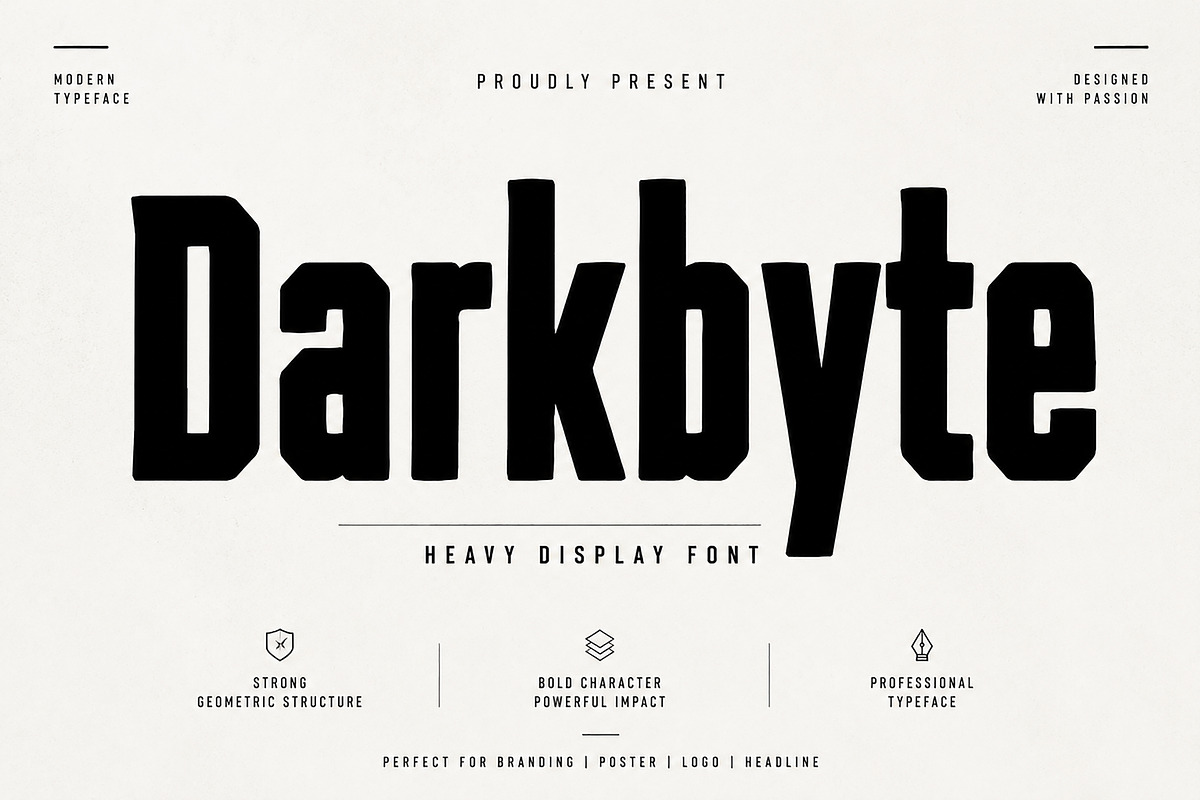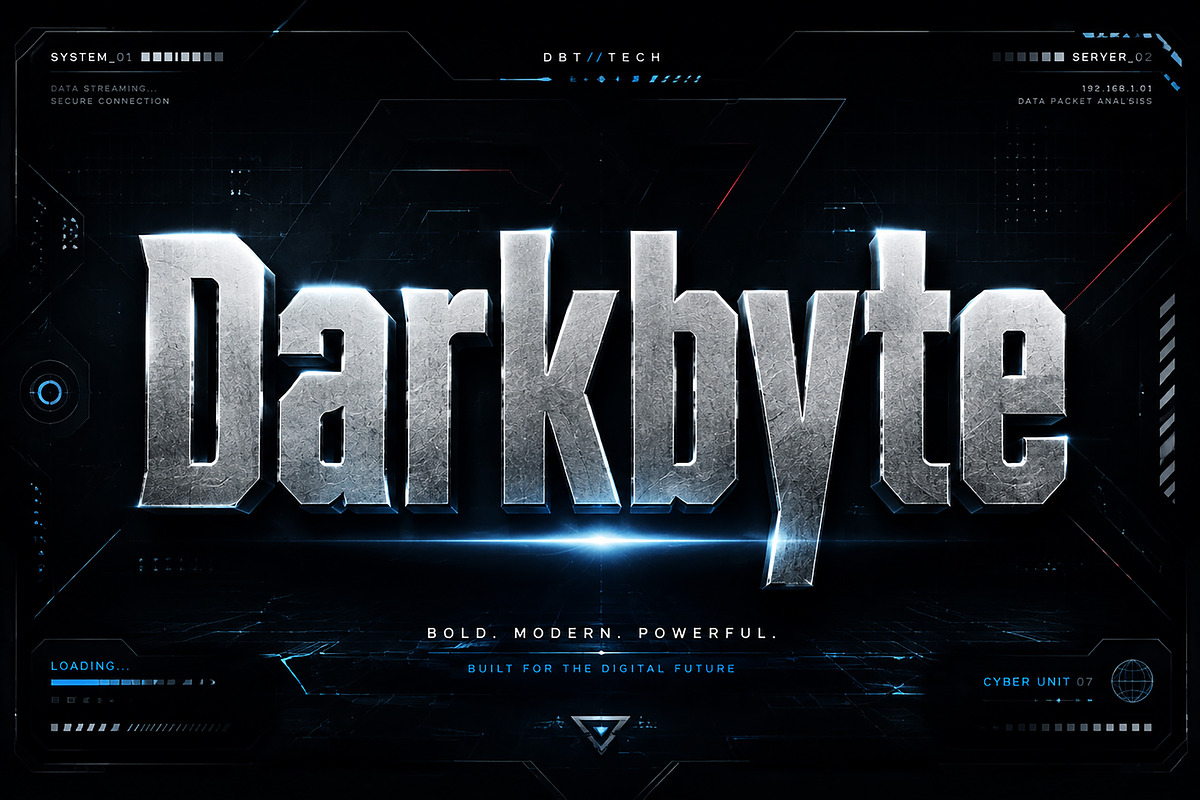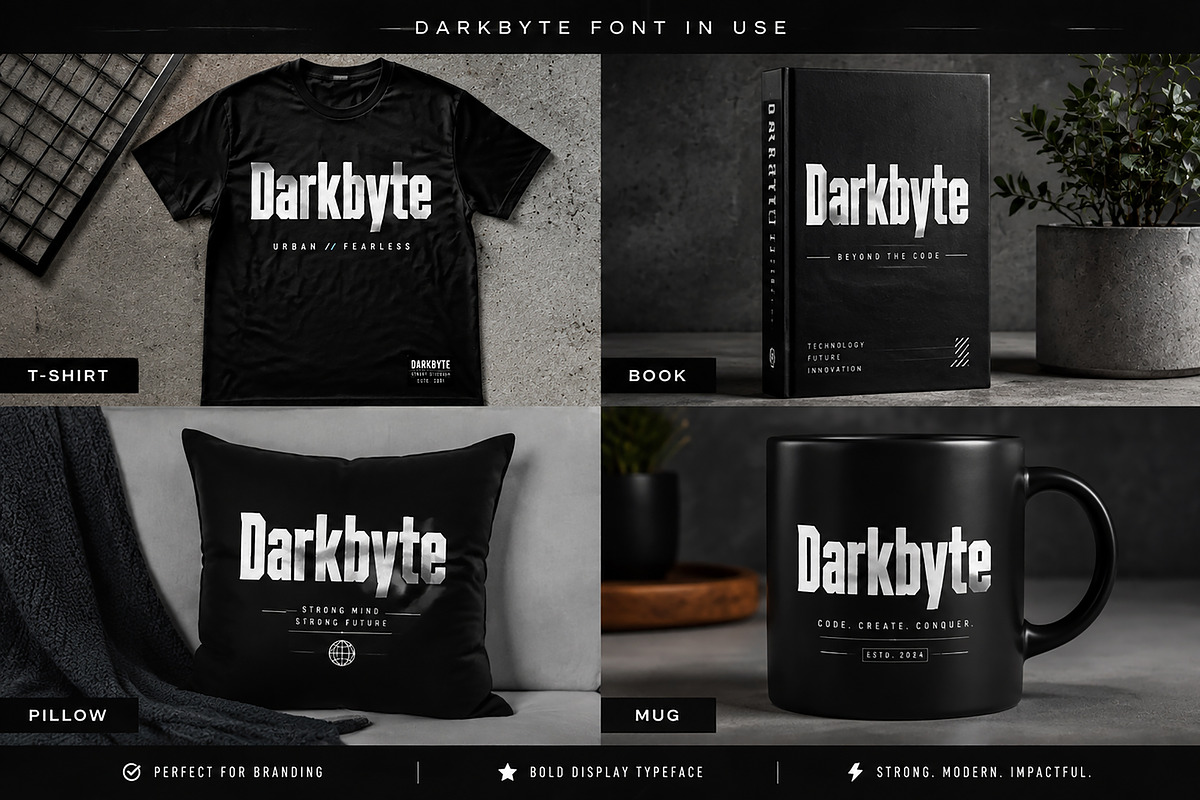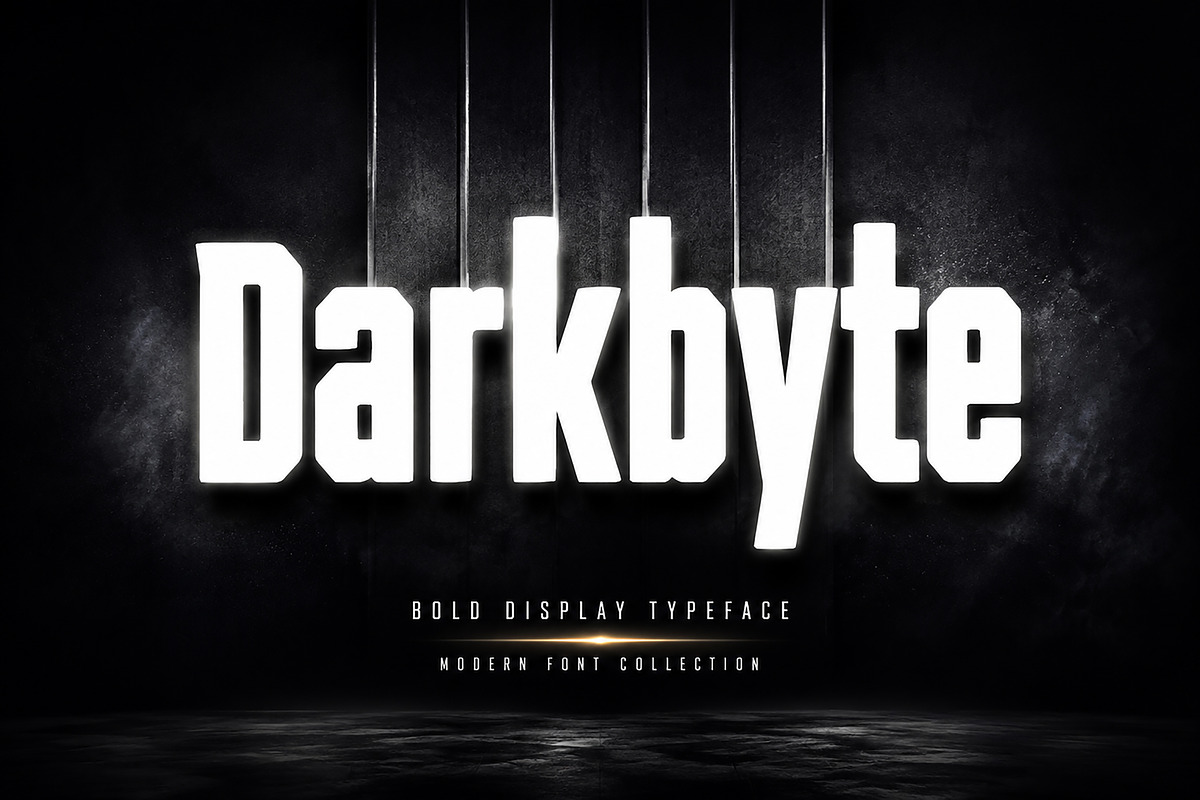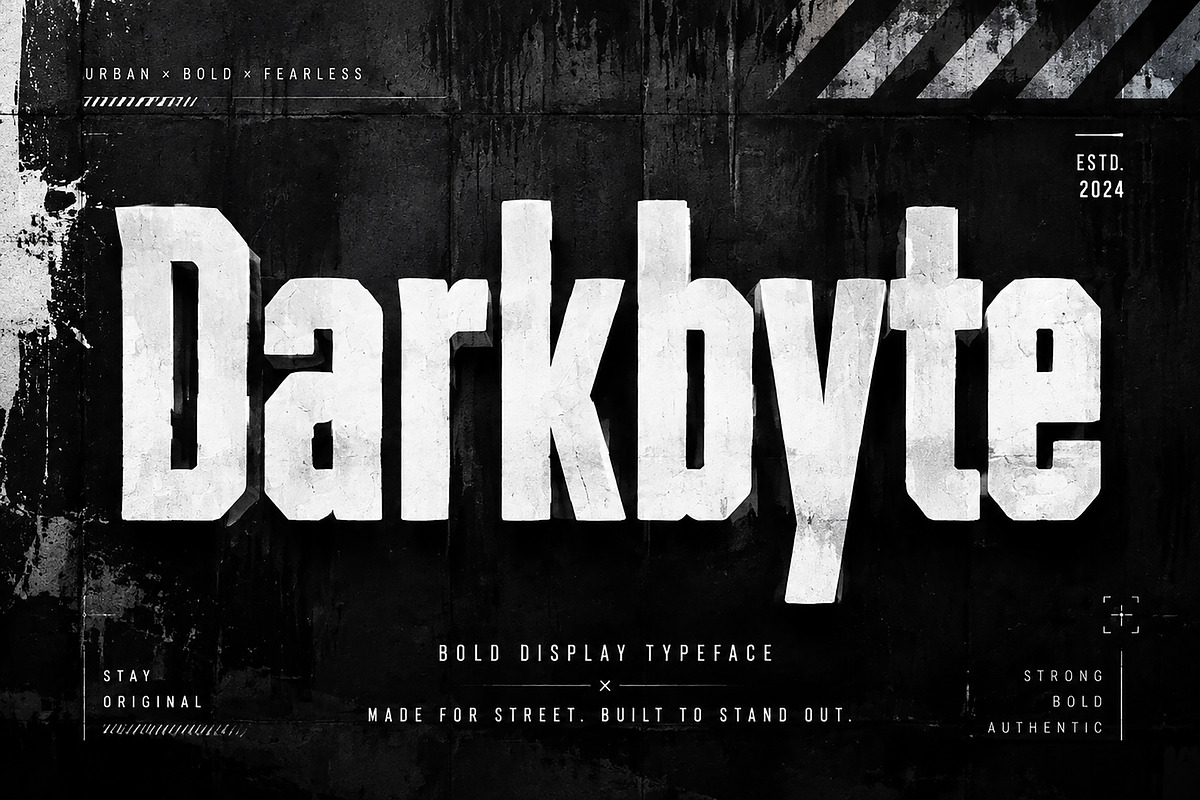
Darkbyte
Darkbyte – Bold Display Typeface
Darkbyte is a powerful bold display font designed for modern, impactful, and eye-catching designs. With its heavy structure, strong geometric shapes, and futuristic character, Darkbyte brings a confident and aggressive visual style to any creative project.
Perfect for branding, logos, posters, gaming graphics, technology designs, streetwear artwork, headlines, social media graphics, and digital projects that require a strong visual identity.
Designed for designers who want a bold typeface with maximum impact and professional versatility.
✔ Bold Display Typeface
✔ Strong Geometric Structure
✔ Modern Futuristic Style
✔ High Impact Letterforms
✔ Perfect for Branding & Logo Design
✔ Great for Posters, Headlines & Titles
✔ Suitable for Gaming & Technology Projects
✔ Clean Professional Font Design
Font Type: Display Typeface
Style: Bold / Modern / Futuristic
Ideal For:
Brand Identity
Gaming Projects
Technology Branding
Esports Graphics
Streetwear Designs
Posters & Flyers
Album Covers
YouTube Thumbnails
Social Media Artwork
Headlines & Titles
Create bold, unforgettable designs with Darkbyte — a typeface built to stand out.